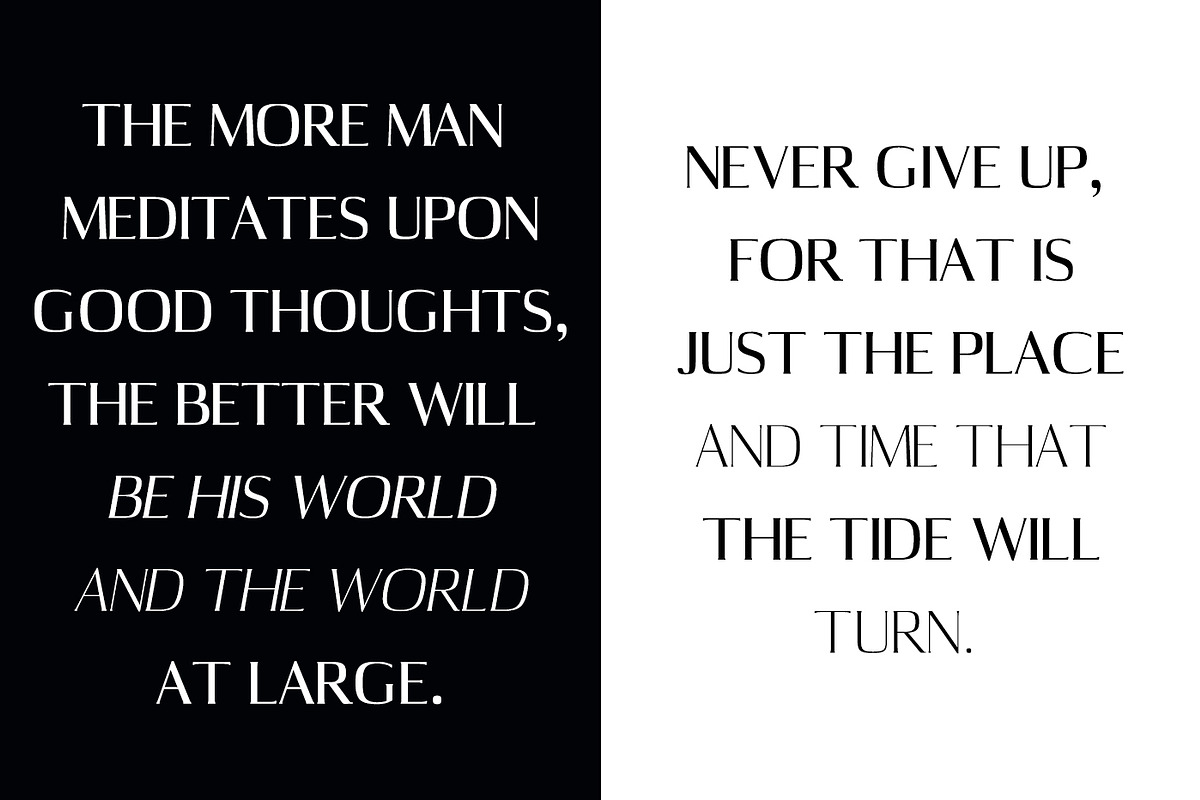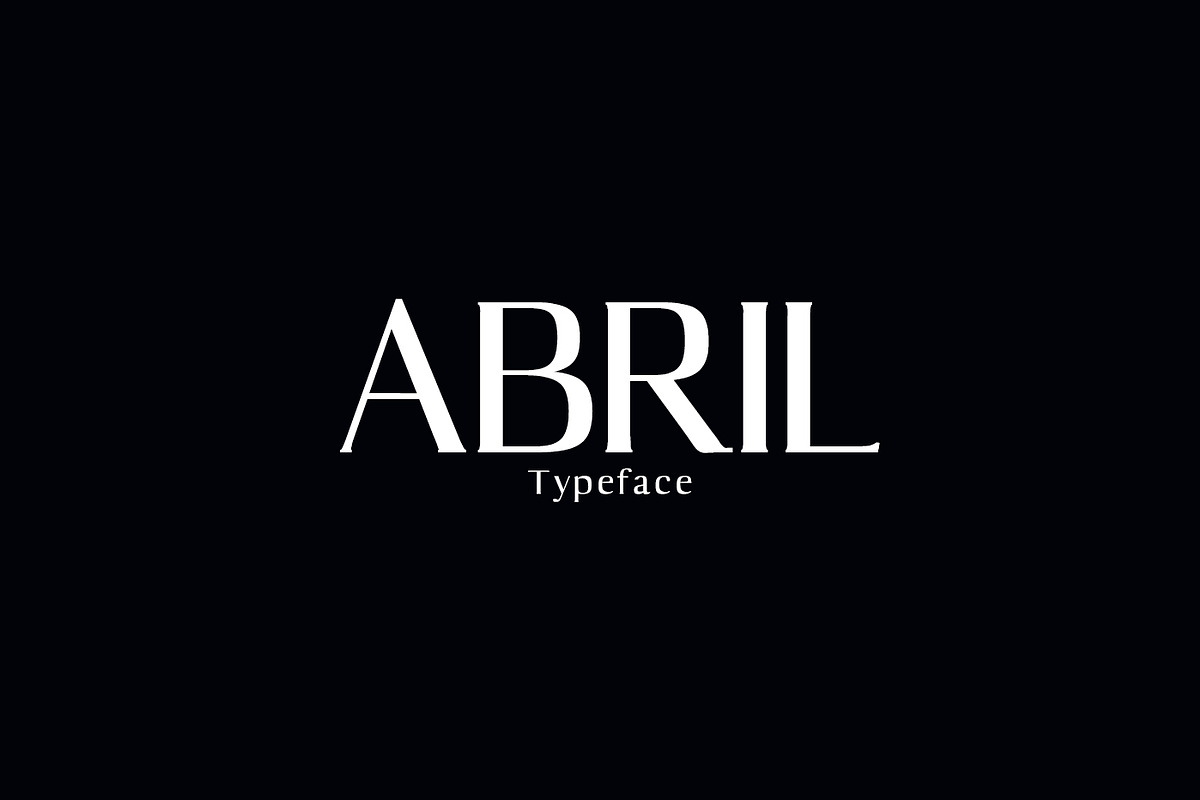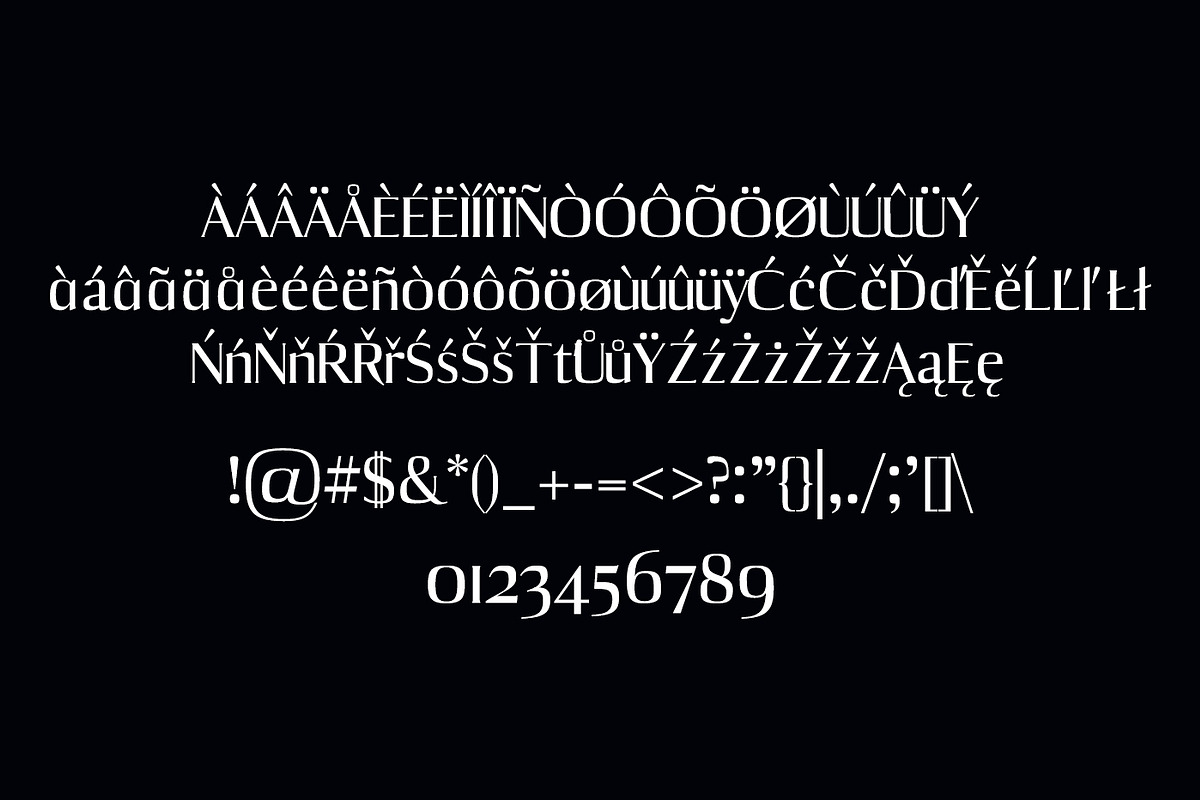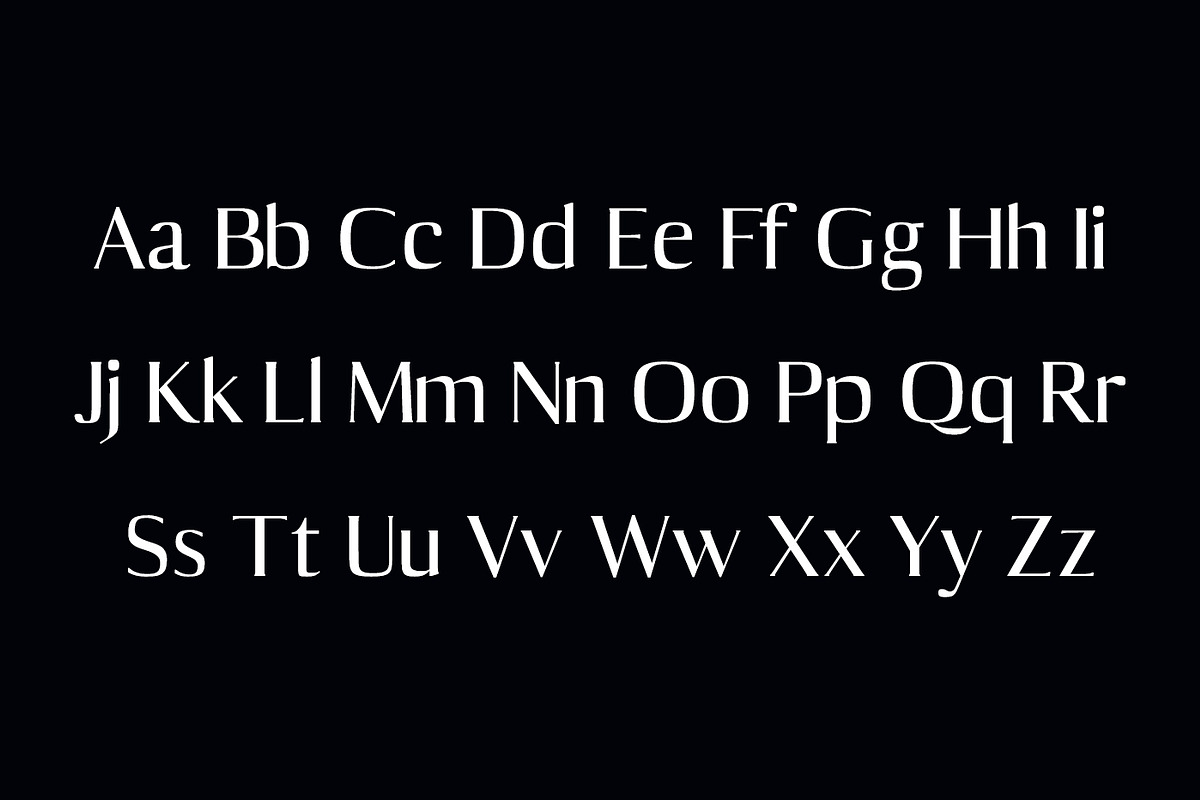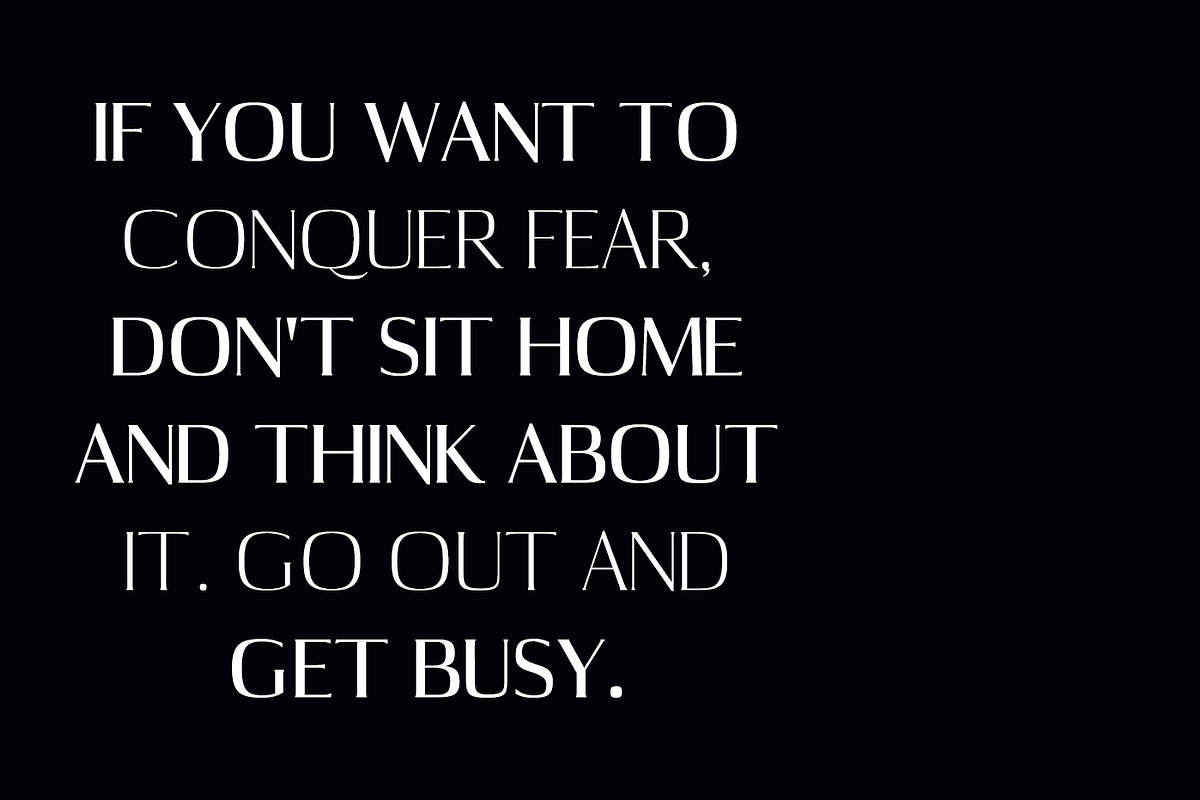
Abril Serif Font Family Pack
Abril Serif Font Family Pack by Creativetacos is a font selected for branding, posters, packaging, typography.
- Regular, Light, Thin, Medium and Italics Weights
- Abril Thin
- Abril Thin Italic
- Abril Light
- Abril Light Italic
- Abril Regular
- Abril Medium
- Abril Medium Italic
Why Abril Serif Font Family Pack is worth a look
Abril Serif Font Family Pack by Creativetacos fits naturally into Branding, posters, packaging, typography.